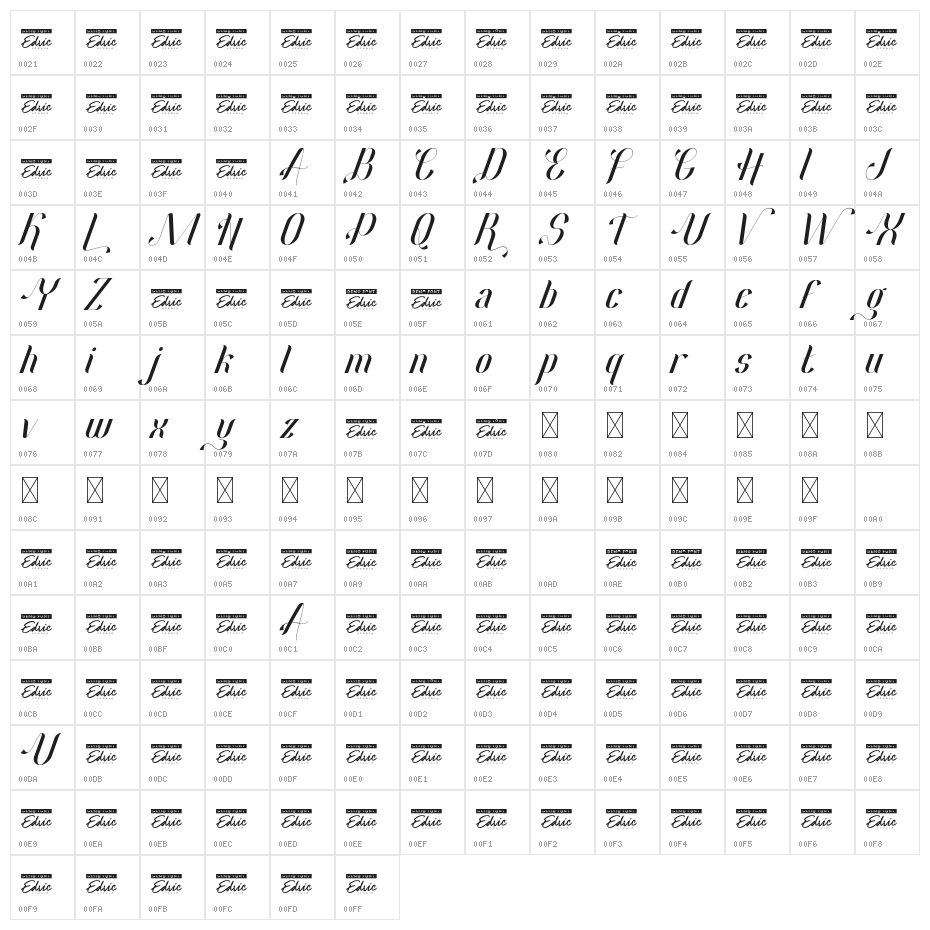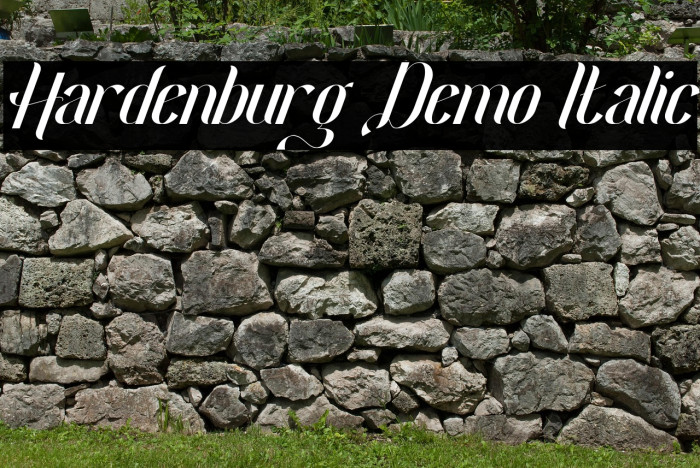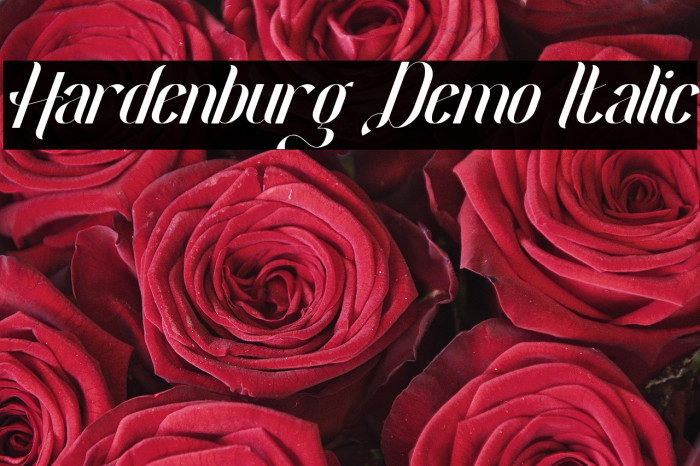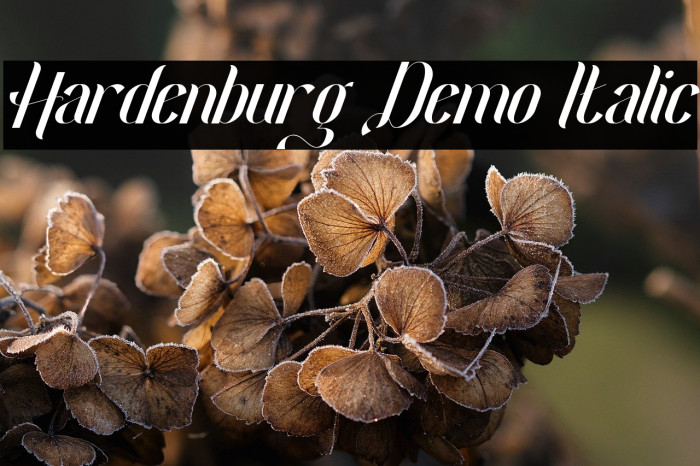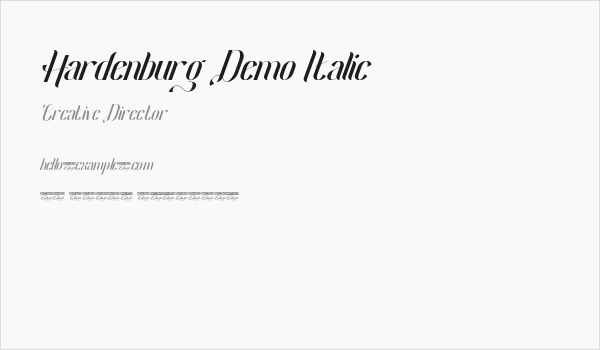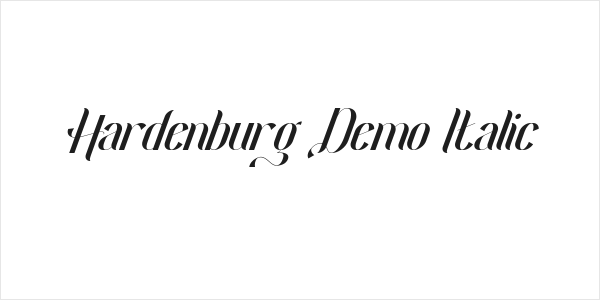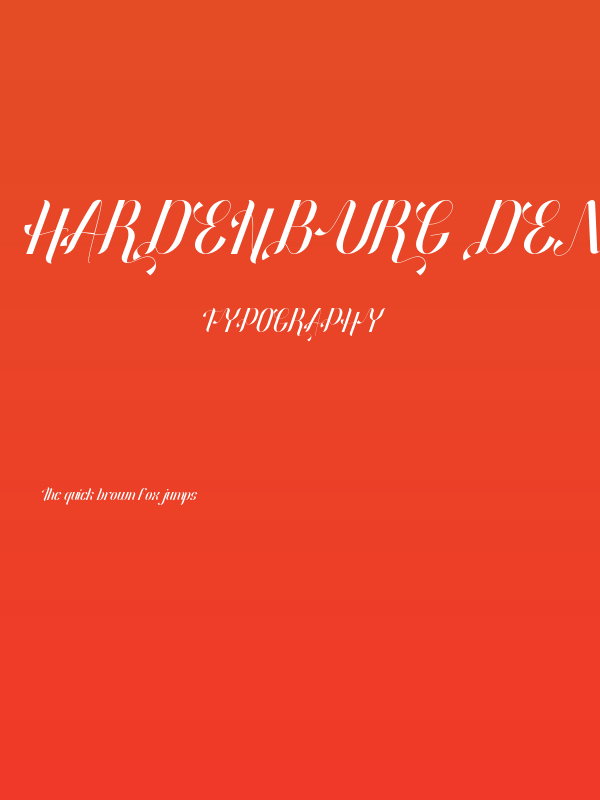
Hardenburg Demo Italic Font
Hardenburg Demo Italic Description
This font exudes a sophisticated and elegant style, characterized by its flowing, cursive script that combines both modern and classic elements. The letters are gracefully elongated with smooth curves and sharp edges, creating a dynamic and stylish appearance. The uppercase letters are particularly striking, with unique flourishes that add a touch of flair. The lowercase letters maintain a cohesive look, complementing the uppercase with their own subtle embellishments. The numbers and special characters are designed to match the overall aesthetic, ensuring consistency throughout. This font is perfect for projects that require a touch of elegance and sophistication.
Overall StyleElegant, Modern, Classic
Use CaseLogos, Invitations, Branding
Proposed ProjectsIdeal for wedding invitations, luxury branding, elegant packaging, and high-end editorial design.